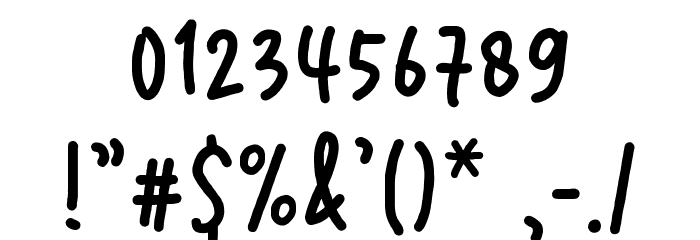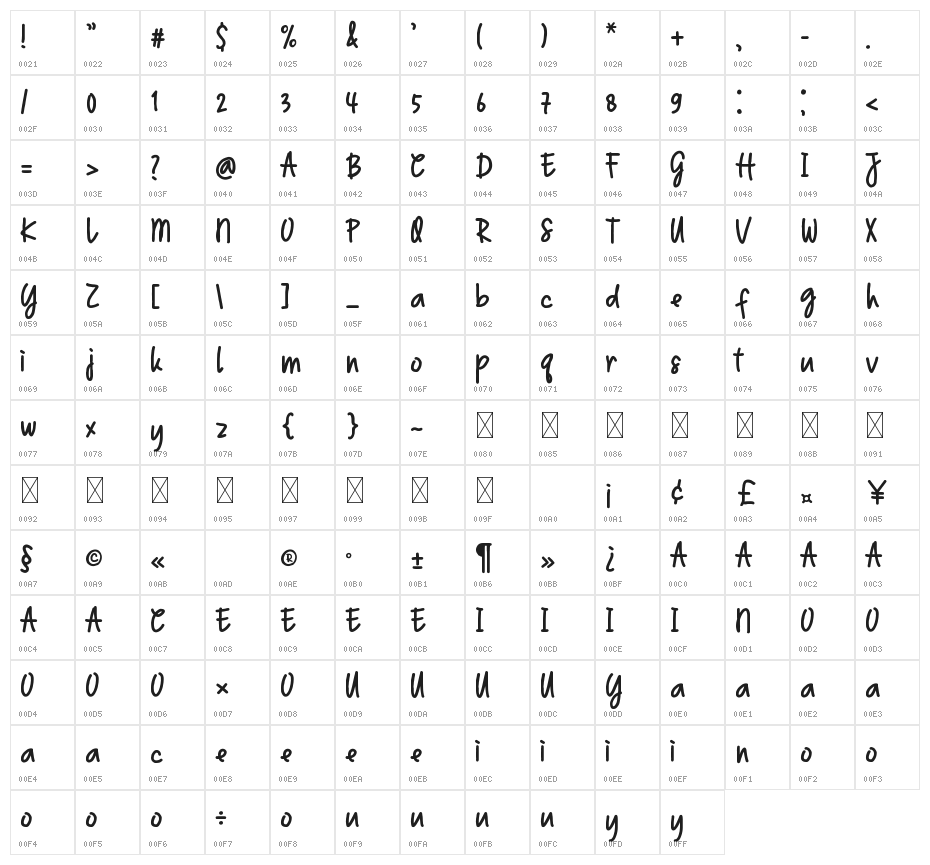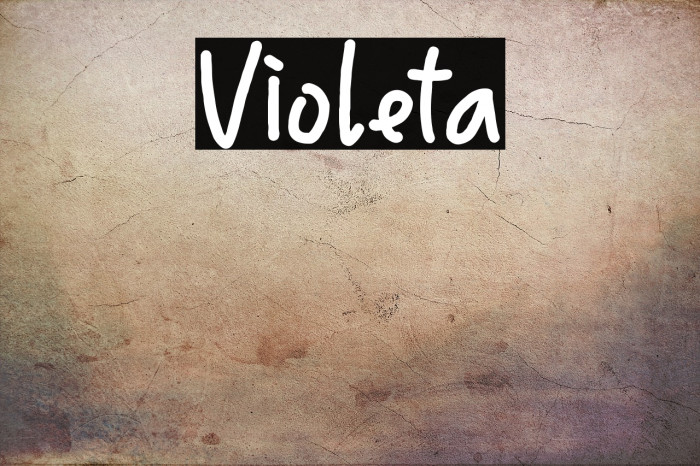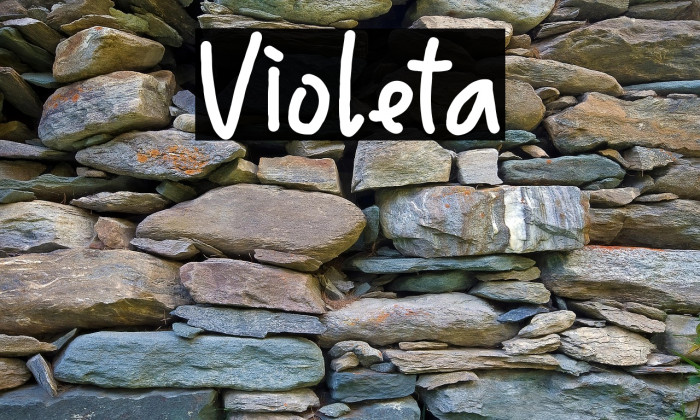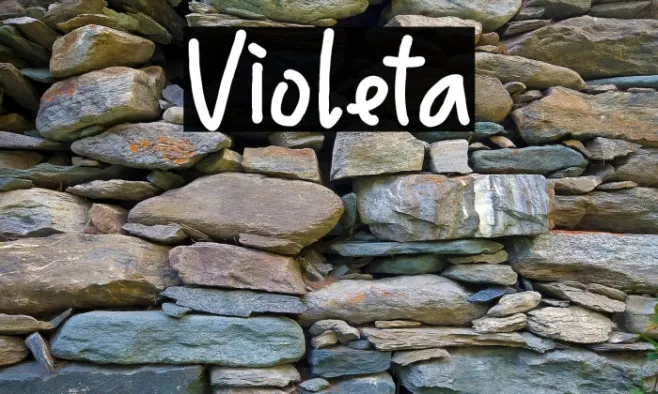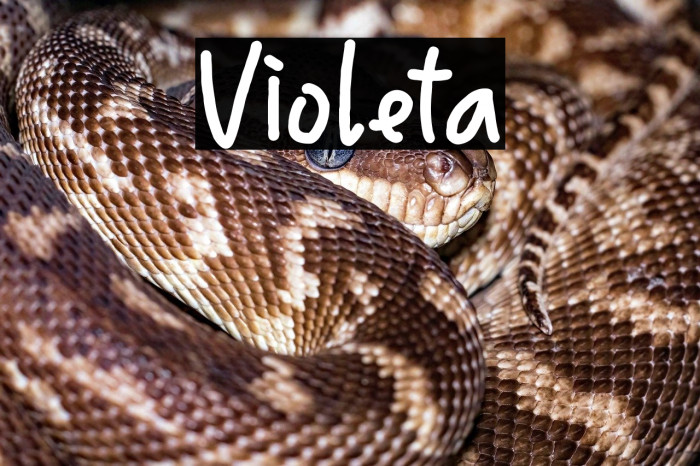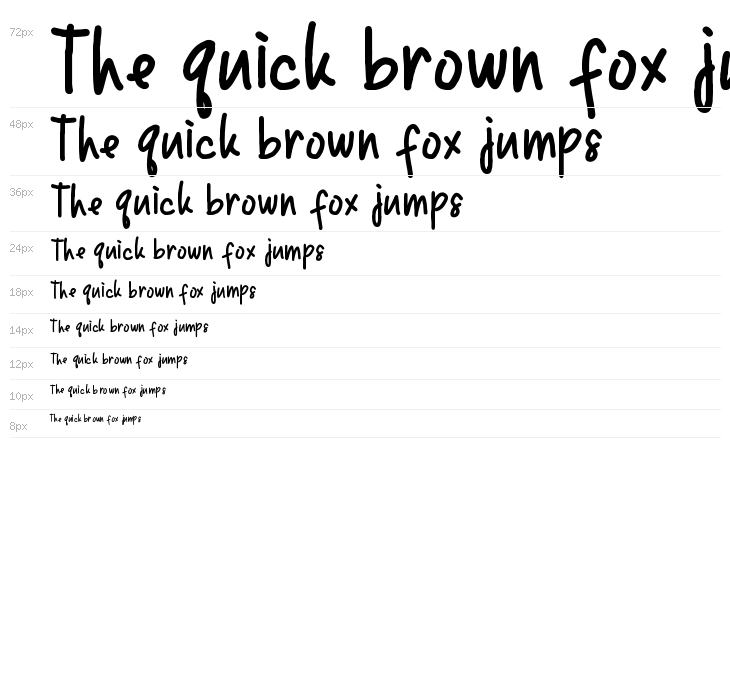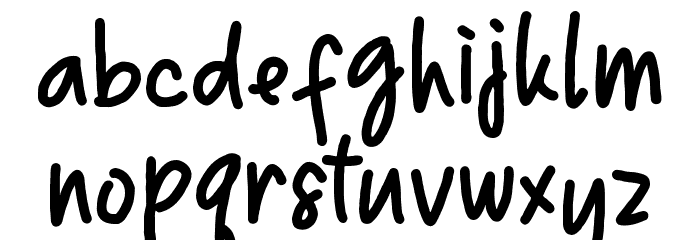
Violeta Font
Violeta Description
This font features a playful and casual handwritten style, characterized by its bold and slightly irregular strokes. The letters have a natural flow, with a slight slant that adds a dynamic feel. The uppercase letters are tall and prominent, while the lowercase letters maintain a consistent height, creating a harmonious balance. The numerals are clear and easy to read, matching the overall informal aesthetic. Special characters are well-integrated, maintaining the font's cohesive look. This style is ideal for projects that require a personal touch or a friendly, approachable vibe.